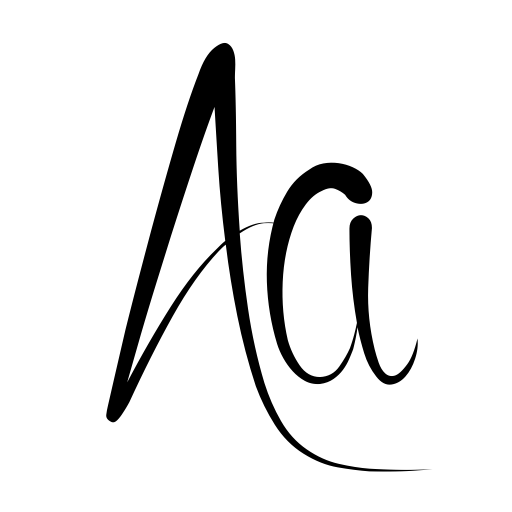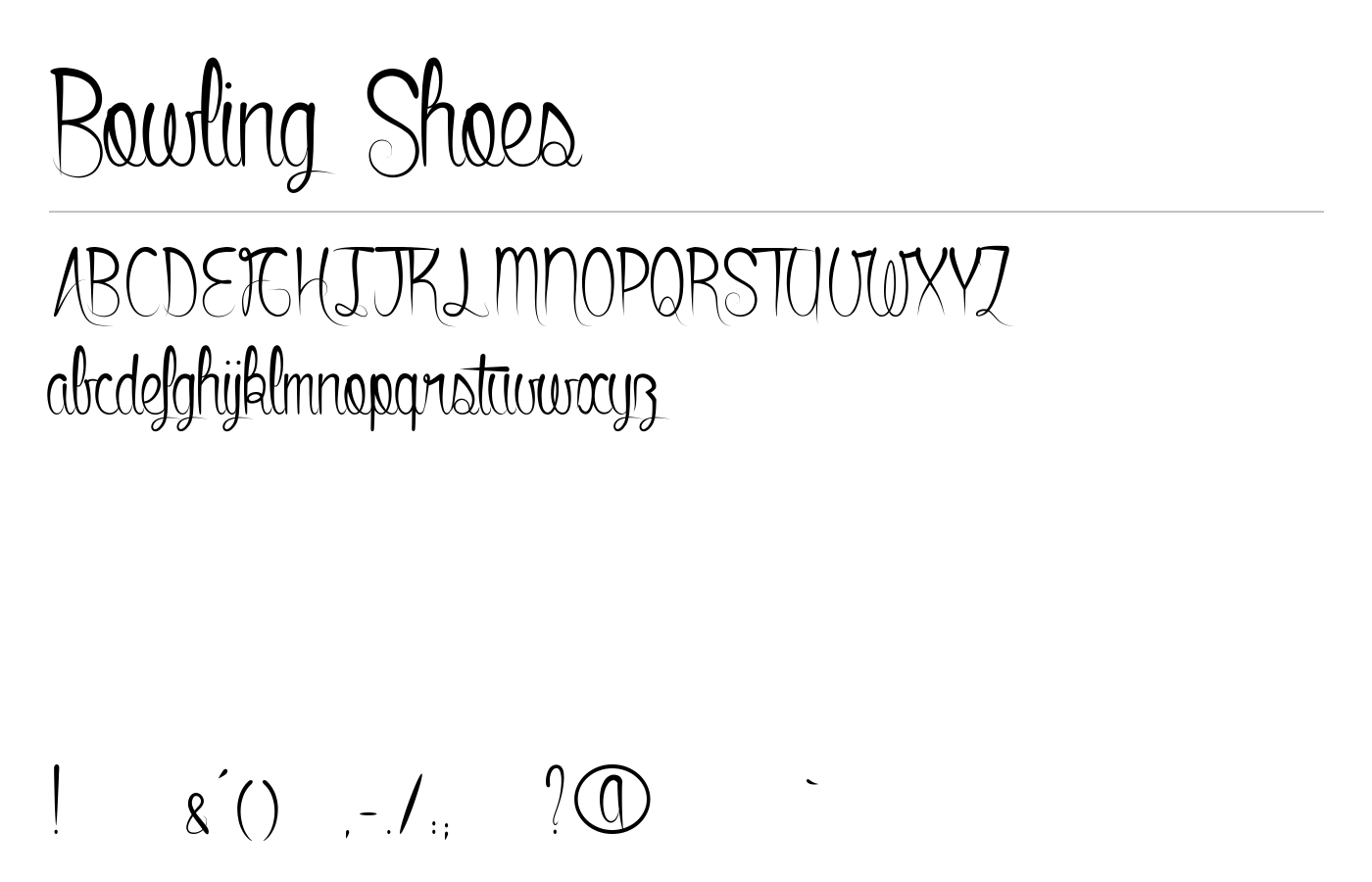
Bowling Shoes is a whimsical, narrow handwritten font with a playful and delicate style, featuring thin strokes and unique ornamental curls on many letters. Its casual yet quirky character makes it ideal for creative projects that seek a lighthearted, artistic touch, such as invitations, greeting cards, or boutique branding. This font shines in display uses where its distinct personality can add charm and originality.
Bowling Shoes Font
About Bowling Shoes Font